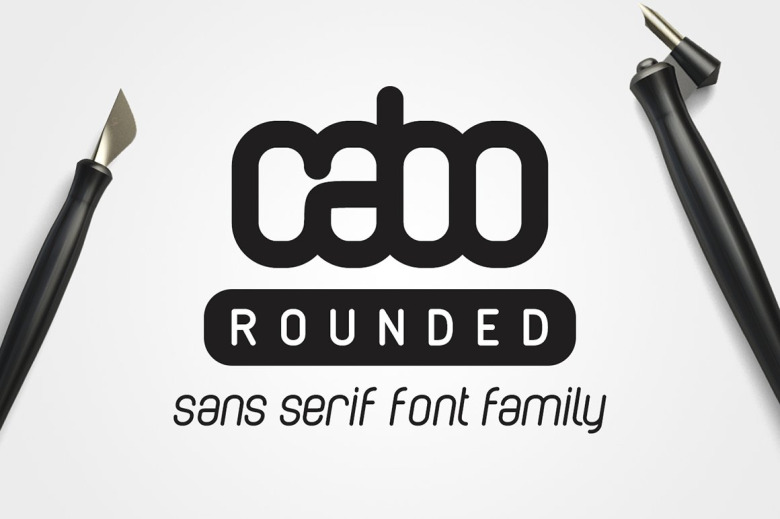
Cabo Rounded Font Family
Cabo Rounded Font
Introduce to you a new font family. That is Cabo Rounded Font Family! Cabo Rounded designed by Design a Lot. Cabo Rounded is a sans serif font family, with rounded edges. It comes in 5 weights and 10 styles. Suitable and applicable to create vintage design, branding, logos, product packaging, invitation, qoutes, t-shirt, label poster etc…